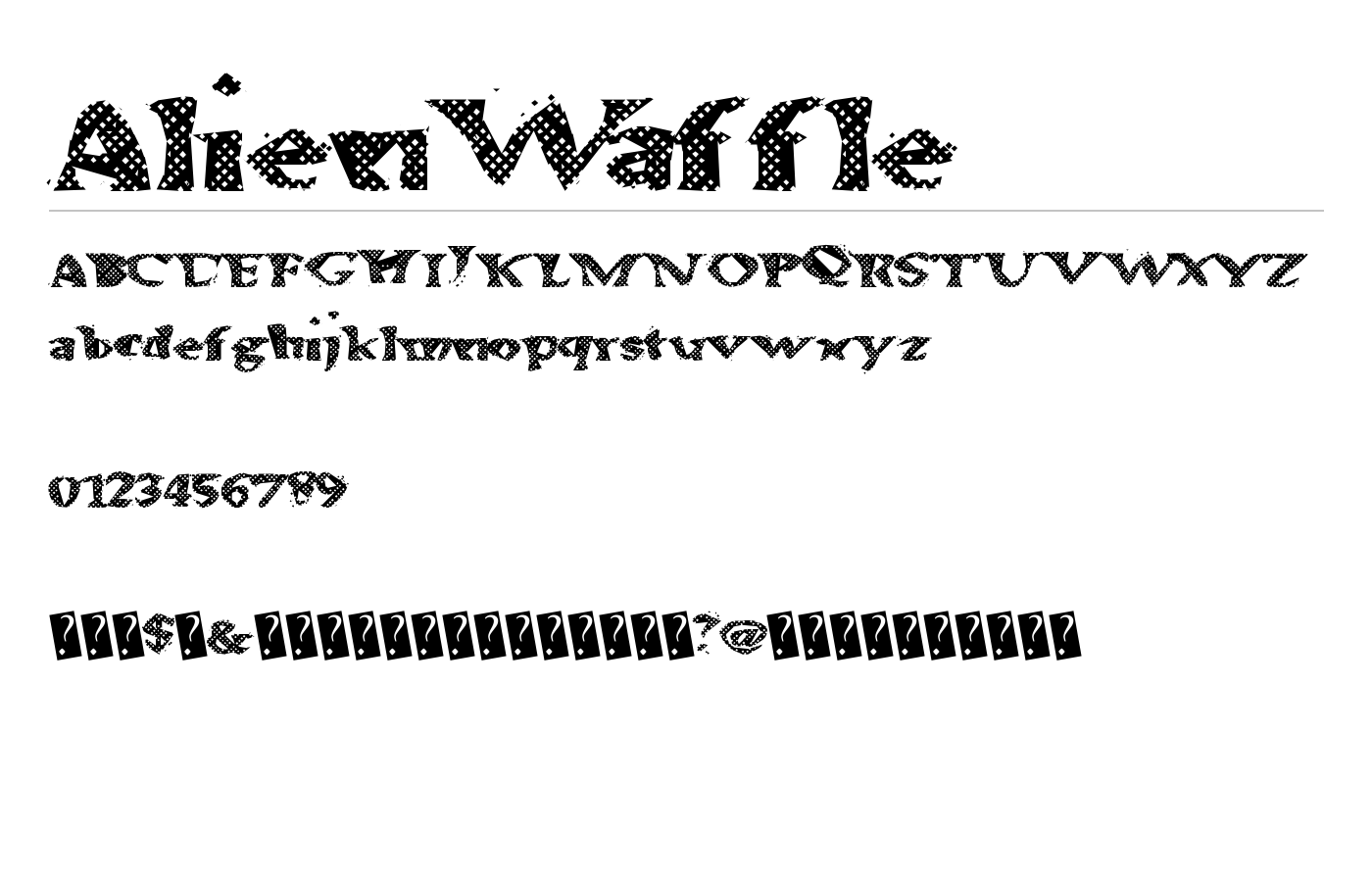
AlienWaffle is a quirky display font with a playful and textured look, featuring irregular shapes and a whimsical, hand-crafted feel. Its creative, patterned characters make it ideal for fun, eye-catching headlines, posters, or branding that aims to stand out with a unique, otherworldly vibe. This font works best in creative projects where personality and a bold visual statement are key.
AlienWaffle Font
About AlienWaffle Font
| Designer | Max Infeld |